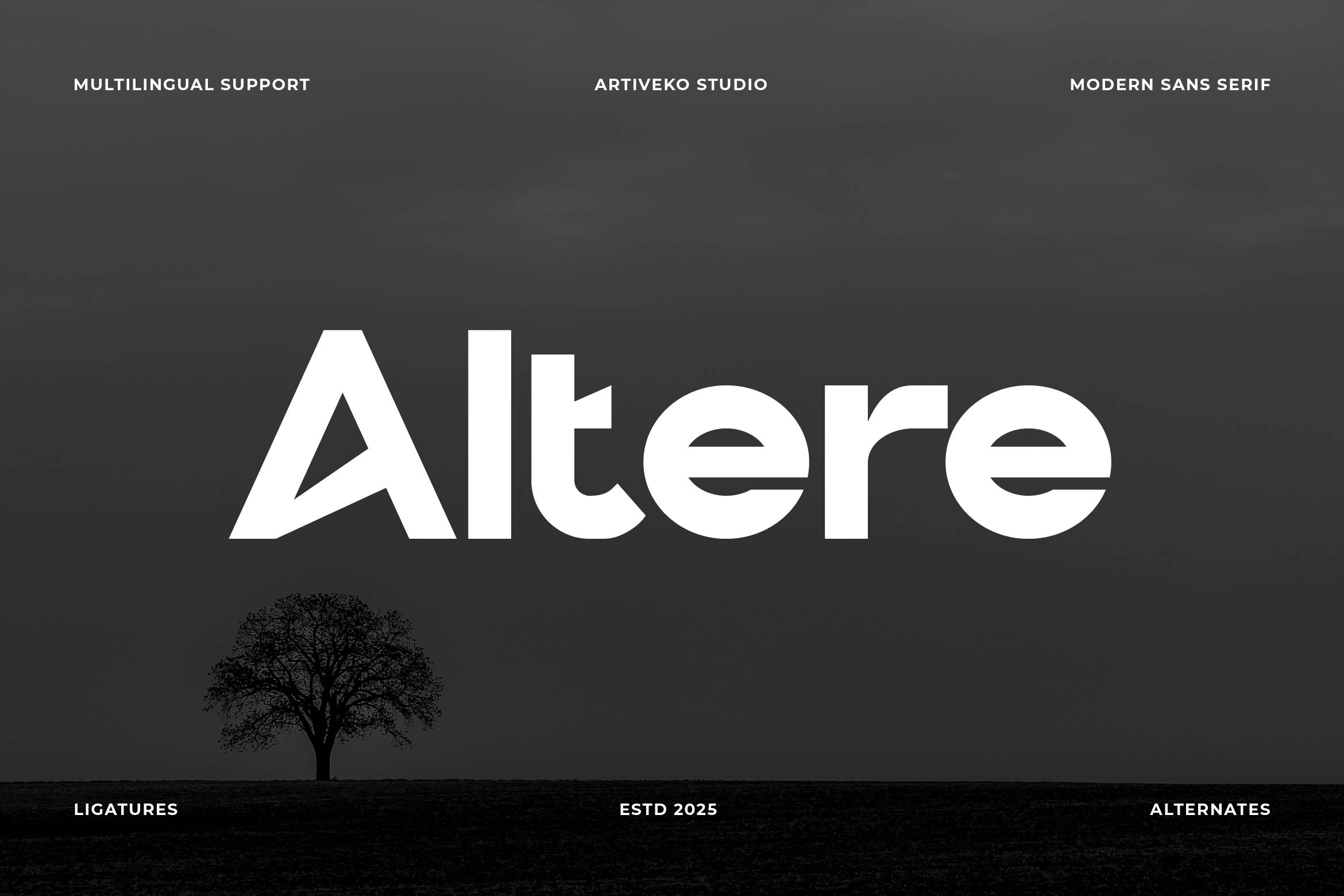
Altere Creative Sans Serif Font
Altere is a stylish and modern sans serif font crafted for creative professionals who value clean aesthetics and visual impact. With its smooth geometry, elegant spacing, and contemporary letterforms, Altere is perfect for branding, logo design, packaging, posters, and digital layouts that require a balance of simplicity and creativity.